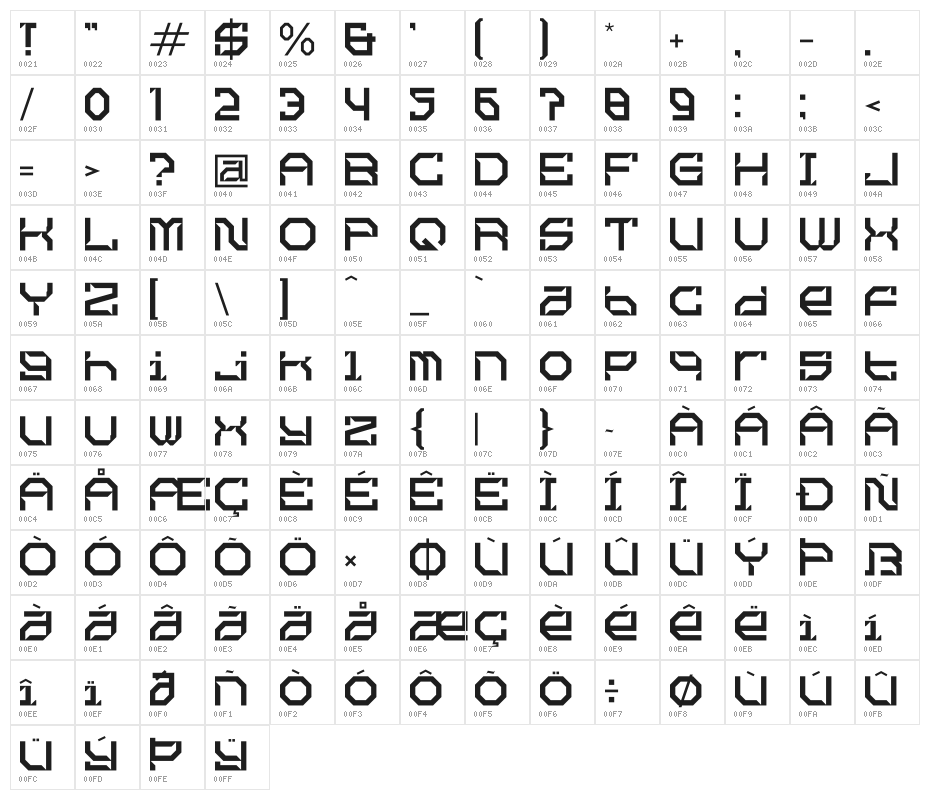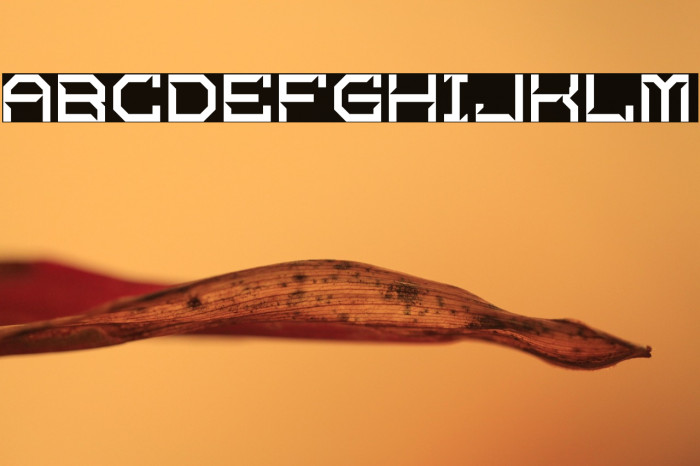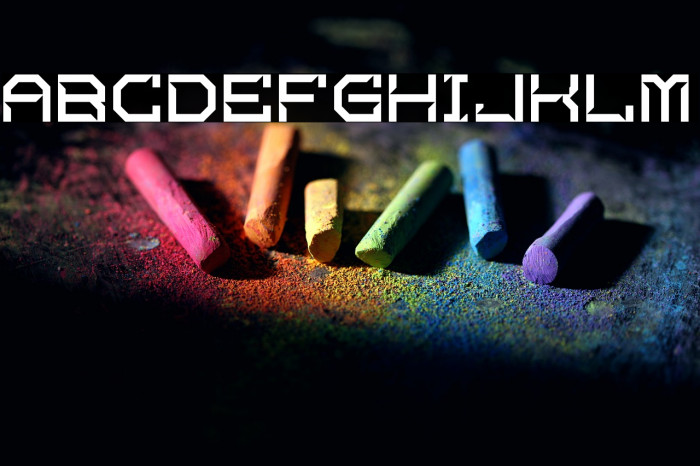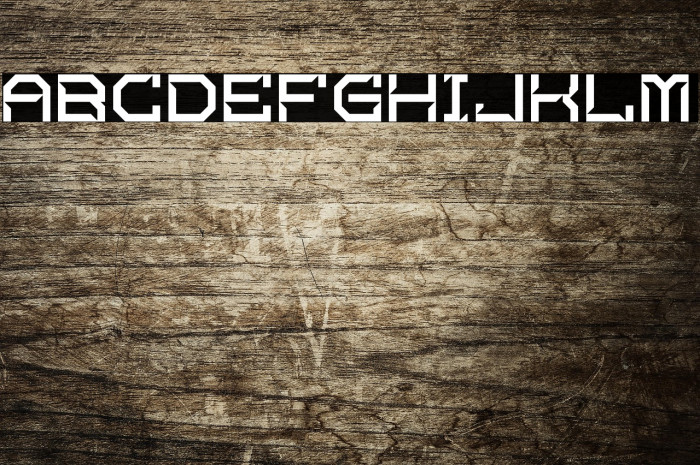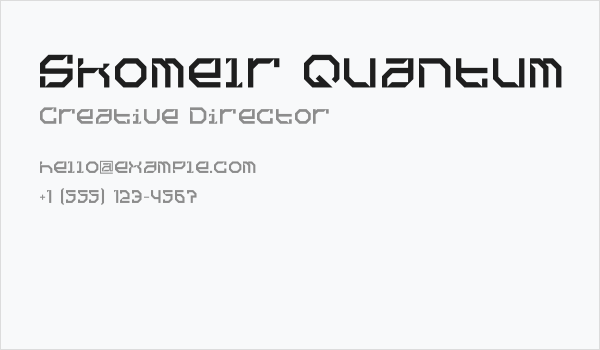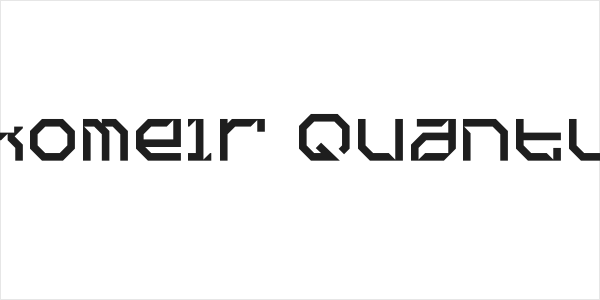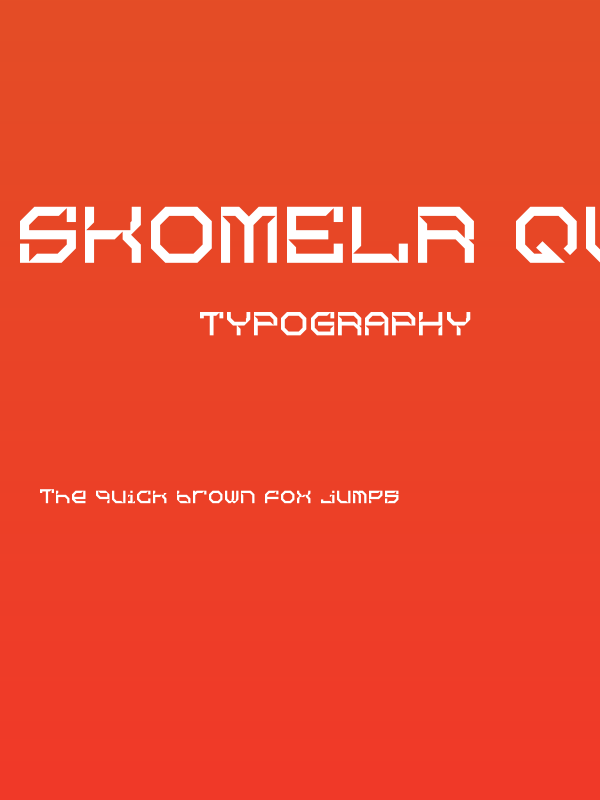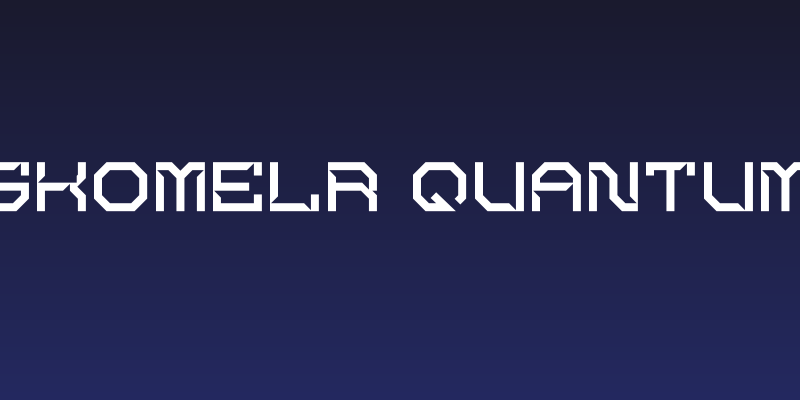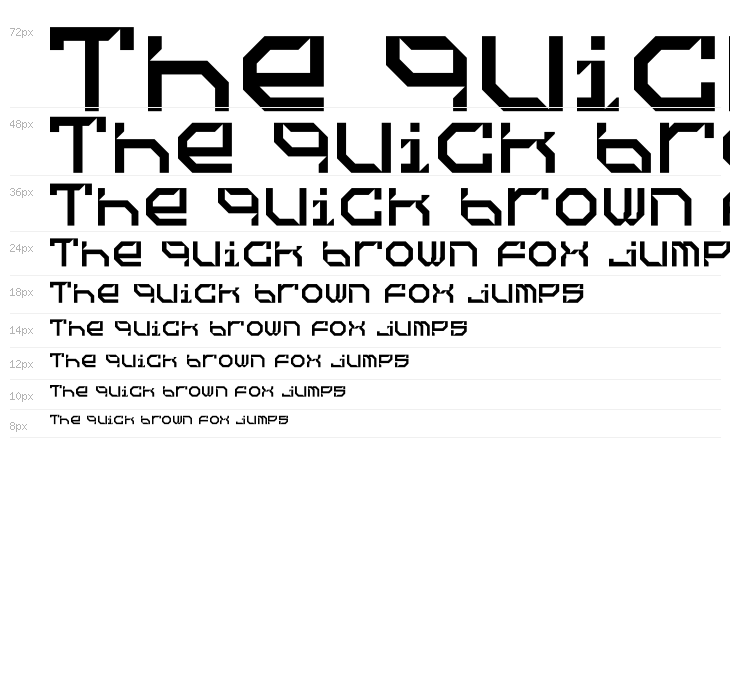
Skomelr Quantum Font
Skomelr Quantum Description
This font features a futuristic and geometric design, characterized by sharp angles and a bold presence. The letters are constructed with a consistent thickness, creating a uniform and cohesive look. The style is reminiscent of digital or sci-fi themes, making it ideal for projects that require a modern and edgy aesthetic. The characters are well-defined, with a unique structure that sets them apart from traditional fonts. The numerals and special characters maintain the same angular design, ensuring a harmonious appearance across all elements.
| Proposed Projects | Ideal for sci-fi themed projects, technology branding, video game titles, and futuristic posters. |